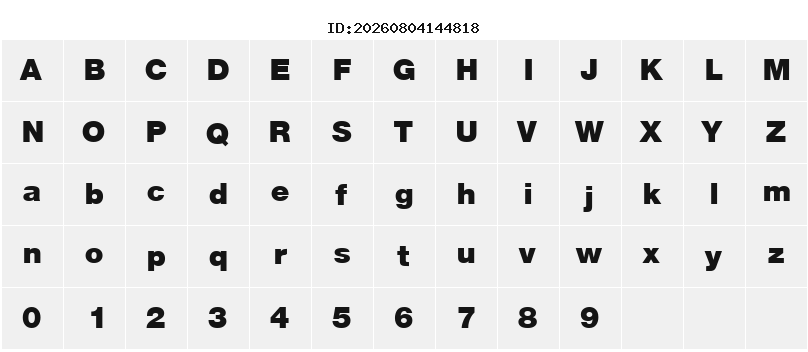
About NimbusSanNovDBla.ttf
NimbusSanNovDBla.ttf is a modern, elegant sans-serif font designed for ultimate readability and visual harmony. Perfect for branding, headlines, web design, and print materials.